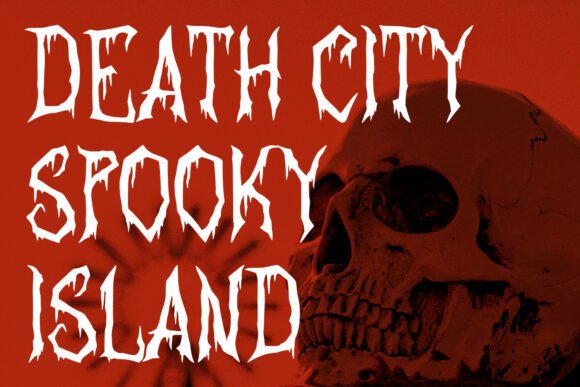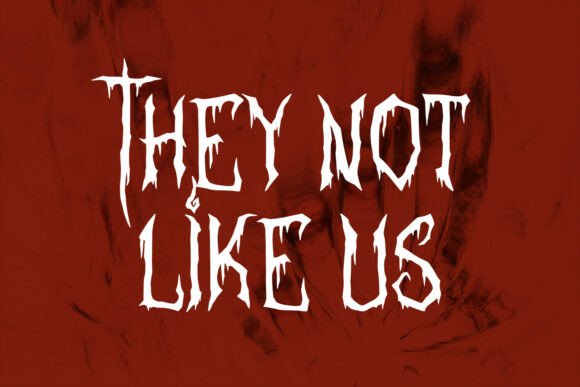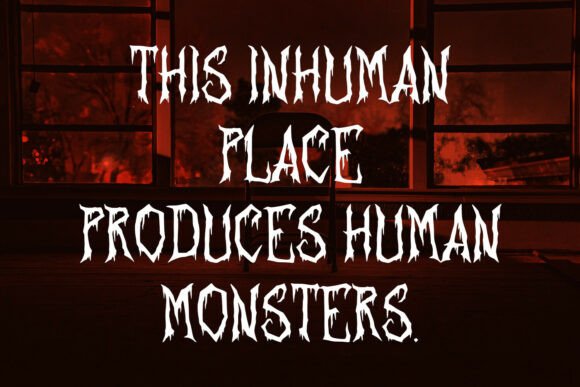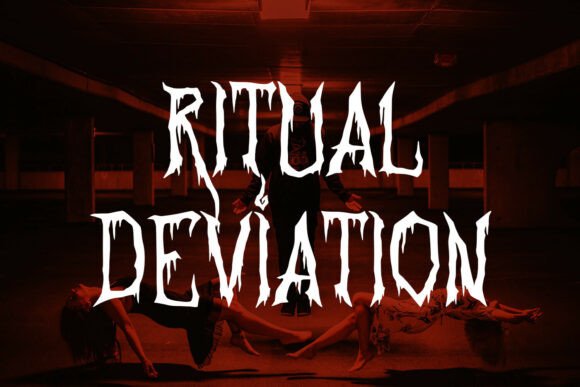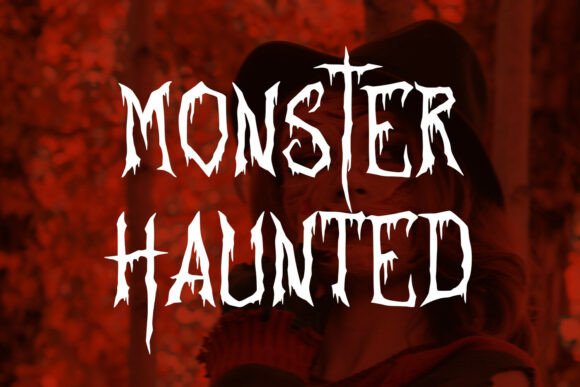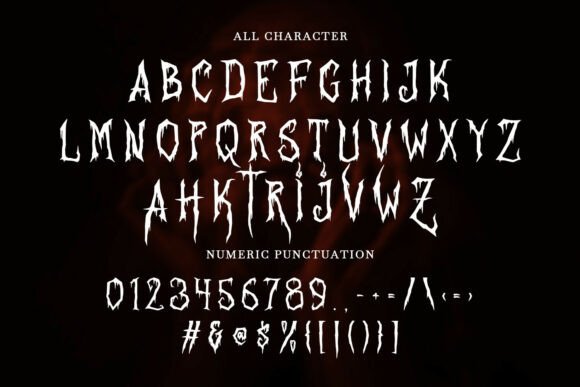
Introducing Frozzedt Font: Unleash Your Creativity with a Bold, Dripping, Handmade Display Font
Are you tired of using the same old fonts in your design projects? Look no further than Frozzedt, a bold, dripping, handmade display font that’s sure to bring a unique flair to your creations. With its playful characters, creative alternates, and versatility in supporting over 100 languages, Frozzedt is the perfect choice for designers and crafters looking to elevate their work.
A Font that Makes a Statement
Frozzedt is not just a font – it’s an experience. Its bold, dripping texture gives it a distinctive look that’s sure to grab attention. Whether you’re designing a logo, creating social media graphics, or working on a movie or book title, Frozzedt is the perfect choice to make a bold statement. Its playful characters and creative alternates add a touch of whimsy and fun, making it ideal for projects that require a bit of personality.
Versatility at its Best
One of the standout features of Frozzedt is its versatility. Supporting over 100 languages, this font can be used for a wide range of projects, from short captions to long-form text. It’s also perfect for use as a striking secondary font alongside sans or serif typefaces, adding a touch of drama and flair to your designs. Whether you’re working on a personal project or a client’s brief, Frozzedt is the perfect choice for designers who want to push the boundaries of creativity.
PUA-Encoded for Effortless Customization
Frozzedt font is also PUA-encoded, making it easy to access all glyphs, swashes, and alternate characters. This means you can customize your creations with ease, experimenting with different combinations to find the perfect look for your project. With Frozzedt, you have complete control over your design, allowing you to bring your vision to life.
Frozzedt is a font that’s been designed with designers and crafters in mind. Its handmade texture gives it a unique, organic feel that’s perfect for projects that require a personal touch. Whether you’re creating digital art, crafting handmade cards, or designing promotional materials, Frozzedt is the perfect choice to add a touch of personality to your work.
Key Features of Frozzedt Font
- Bold, dripping texture: Gives Frozzedt a distinctive look that’s sure to grab attention
- Playful characters and creative alternates: Add a touch of whimsy and fun to your designs
- Supports over 100 languages: Makes Frozzedt versatile and perfect for a wide range of projects
- PUA-encoded: Allows for effortless access to all glyphs, swashes, and alternate characters
- Perfect for logo design, social media graphics, and more: Frozzedt is ideal for a wide range of design projects
In conclusion, Frozzedt is a bold, dripping, handmade display font that’s perfect for designers and crafters looking to elevate their creative work. With its playful characters, creative alternates, and versatility in supporting over 100 languages, Frozzedt is the perfect choice for a wide range of projects. Its PUA-encoded design makes customization a breeze, allowing you to bring your vision to life with ease. So why settle for ordinary fonts when you can make a bold statement with Frozzedt?
Whether you’re a seasoned designer or a crafter looking to add a personal touch to your work, Frozzedt is the perfect choice to unleash your creativity and take your projects to the next level.